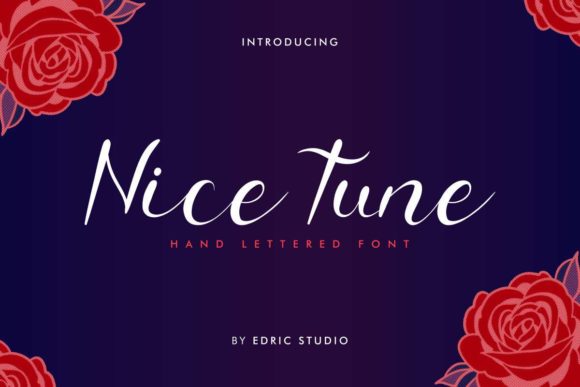
Embrace the allure of Nice Tune Font, a captivating script font designed to ignite your creativity. With its delicate strokes, elegant curves, and balanced characters, Nice Tune promises to transform your designs into masterpieces. The font's graceful flow and enchanting style will add a touch of charm to any project, making it an irresistible choice for those seeking a font with soul.
Nice Tune's versatility knows no bounds. Its ability to adapt to a multitude of designs is a testament to its remarkable flexibility. Whether you're crafting logos, invitations, social media graphics, or product packaging, Nice Tune will seamlessly blend into your vision, elevating it with its inherent beauty. The font's delicate nature lends itself perfectly to wedding invitations, personal branding, and any project where a touch of elegance is desired.
As you explore the depths of Nice Tune's characters, you'll discover a world of artistic possibilities. Each letter is meticulously crafted, exhibiting a harmonious balance between form and function. The result is a font that not only captivates the eye but also enhances the readability of your text. Whether you're creating headings, paragraphs, or intricate lettering, Nice Tune will ensure your words leave a lasting impression.
Immerse yourself in the world of Nice Tune and let your creativity flourish. This exquisite font is an exceptional choice for designers seeking a touch of elegance, charm, and versatility. Its ability to transform ordinary designs into captivating works of art makes it an indispensable tool for those who value beauty and distinction. Embrace the magic of Nice Tune and watch your creative visions take flight.